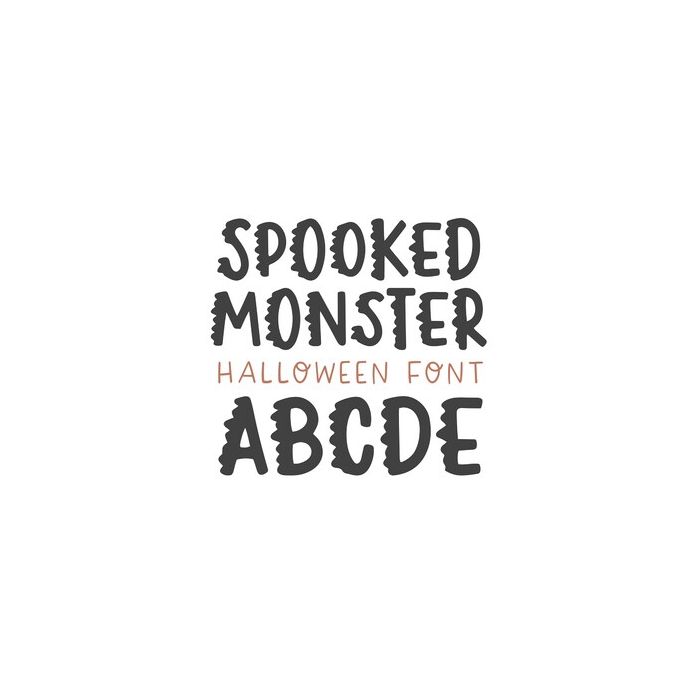
BFC Spooked Monster Halloween Font
Spooked Monster is a scary Halloween/Monster font. Uppercase letters are slightly taller than lowercase so you can create mixed heights in your words.